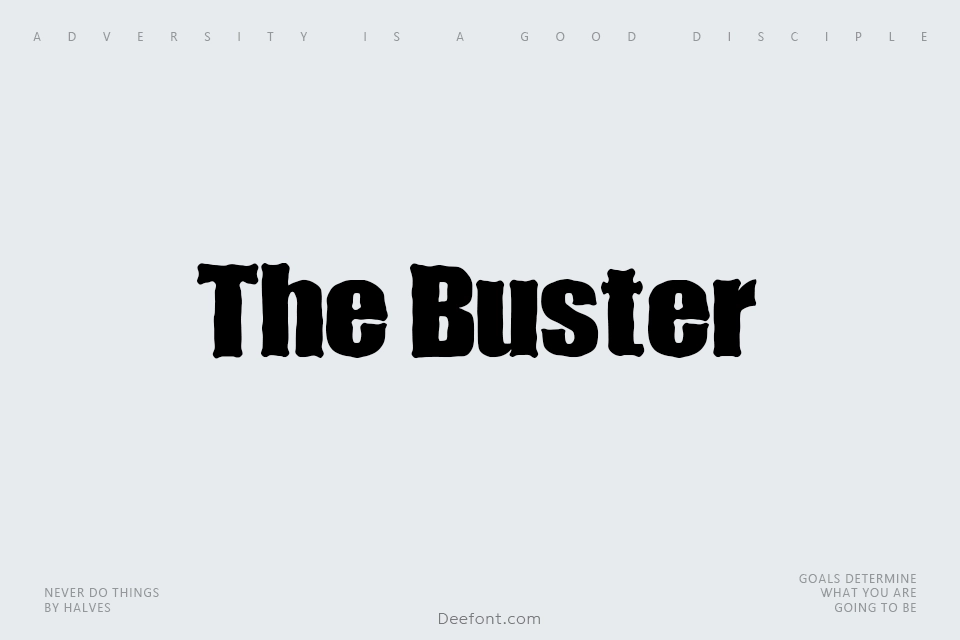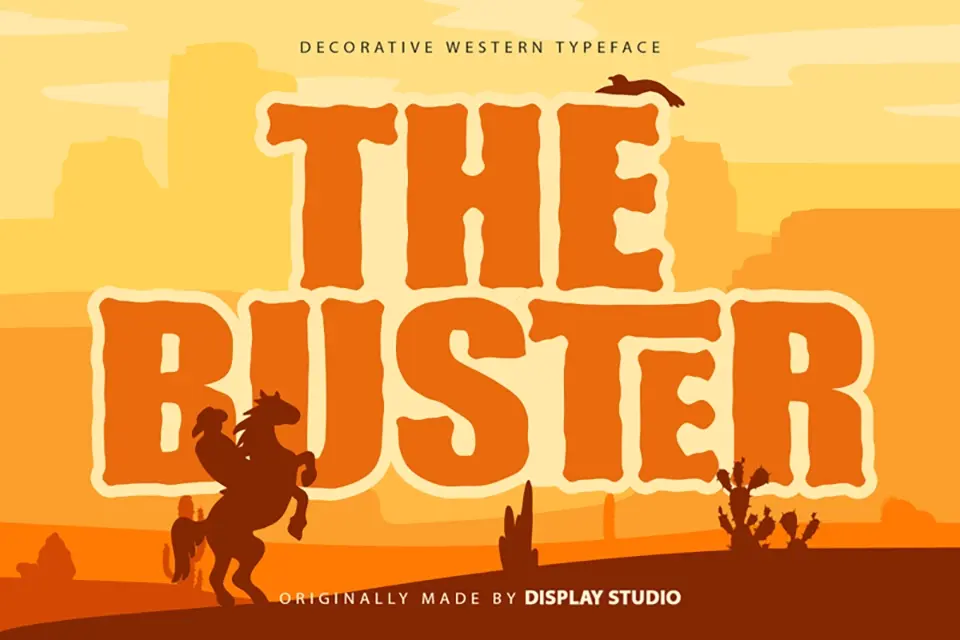
The Buster Font
The Buster is a bold and eye-catching display typeface designed to bring striking visual impact to your creative projects. This stylish and dynamic font features distinctive letterforms perfect for posters, branding, headlines, and attention-grabbing designs. With its modern yet retro aesthetic, The Buster delivers a unique personality that sets your work apart, making it ideal for both digital and print applications where bold typography matters.